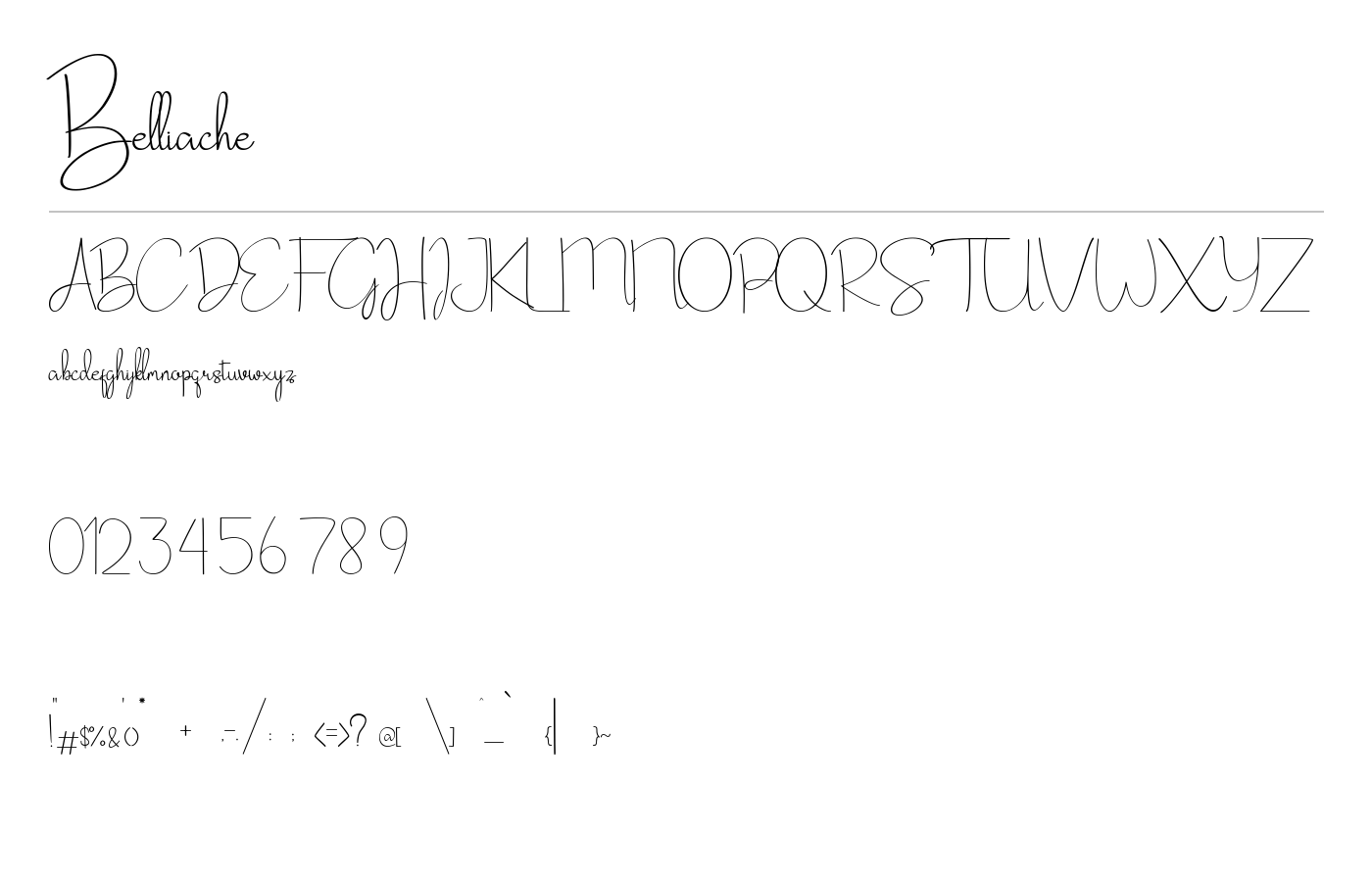
Belliache is a delicate, handwritten script font characterized by its thin, airy lines and elegant, flowing letterforms. Its tall, narrow shapes and playful curves give it a whimsical yet refined personality, making it ideal for creative projects, personal branding, and invitations where a light, artistic touch is desired. This font works beautifully in headlines or display text, adding a unique and charming flair without overwhelming the design.
Belliache Font
About Belliache Font